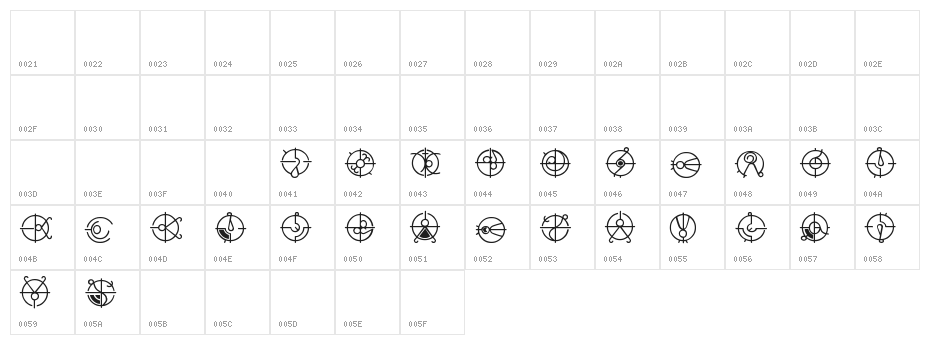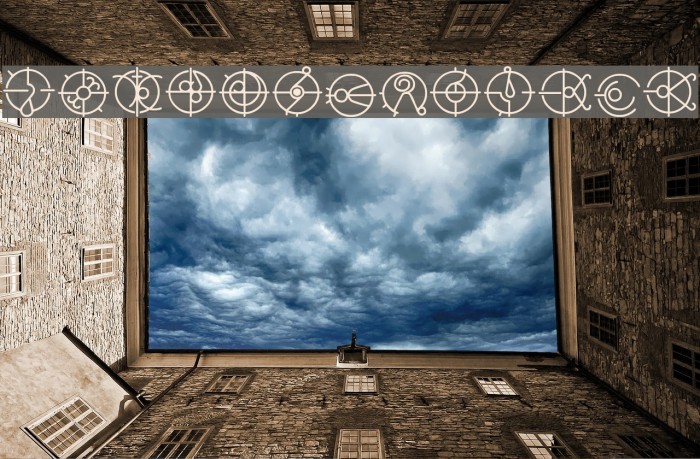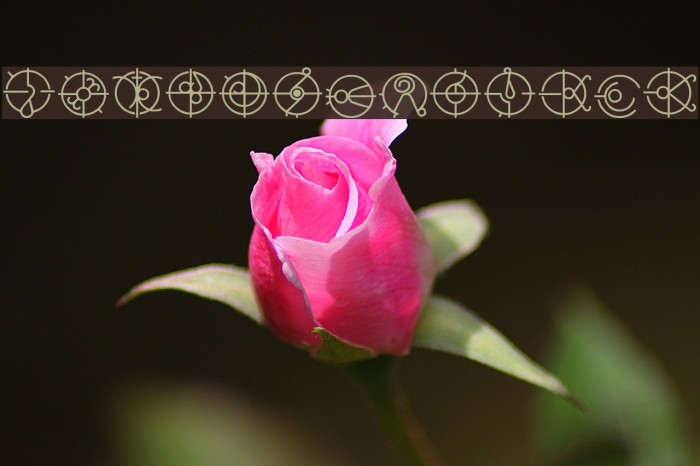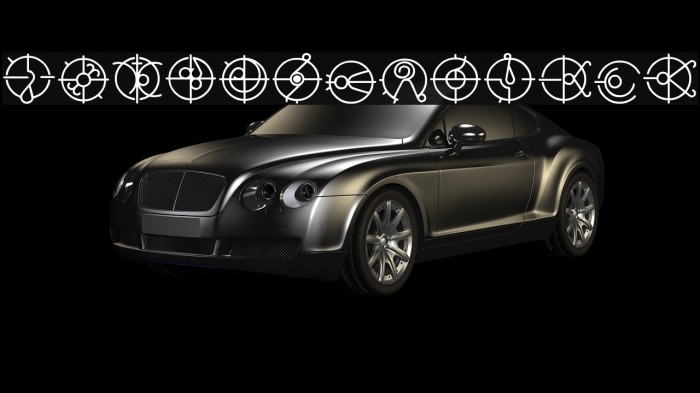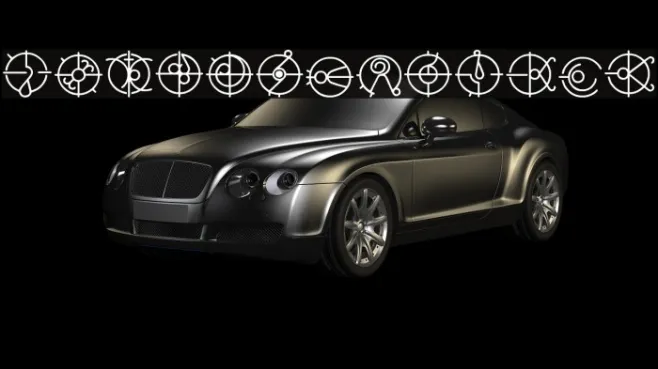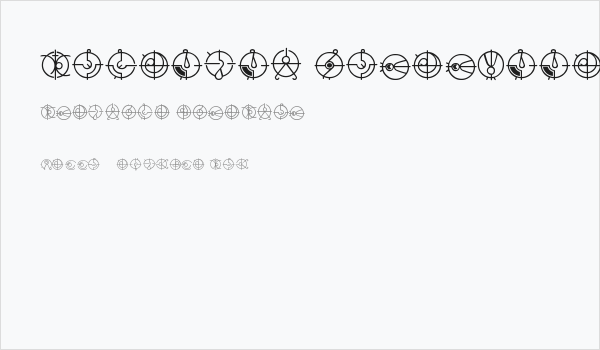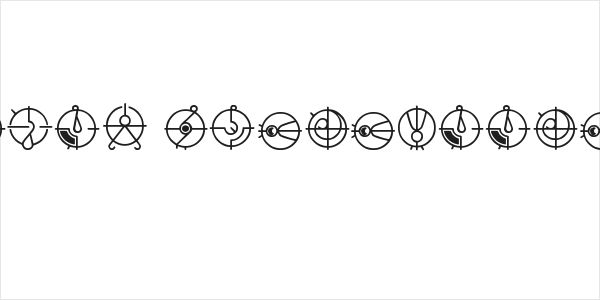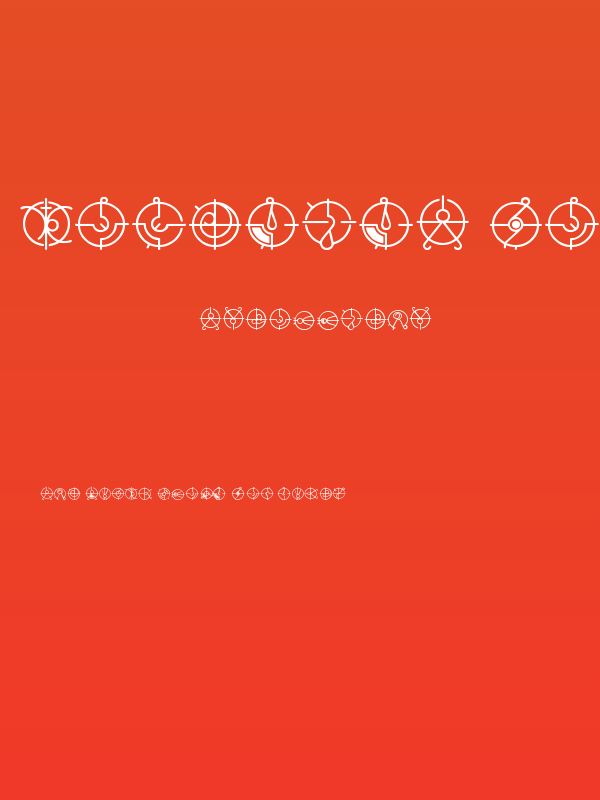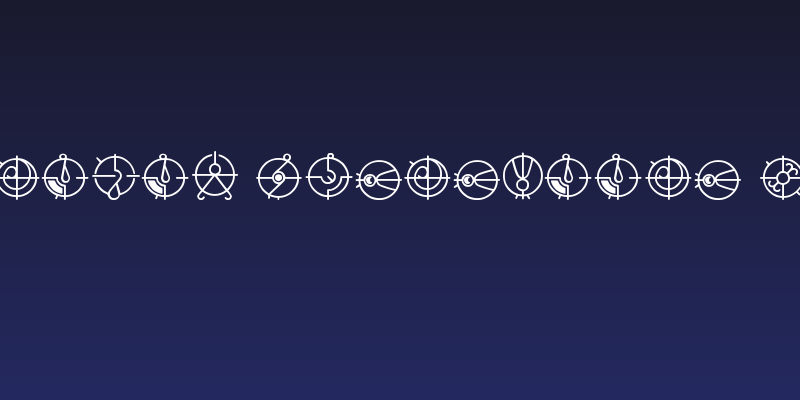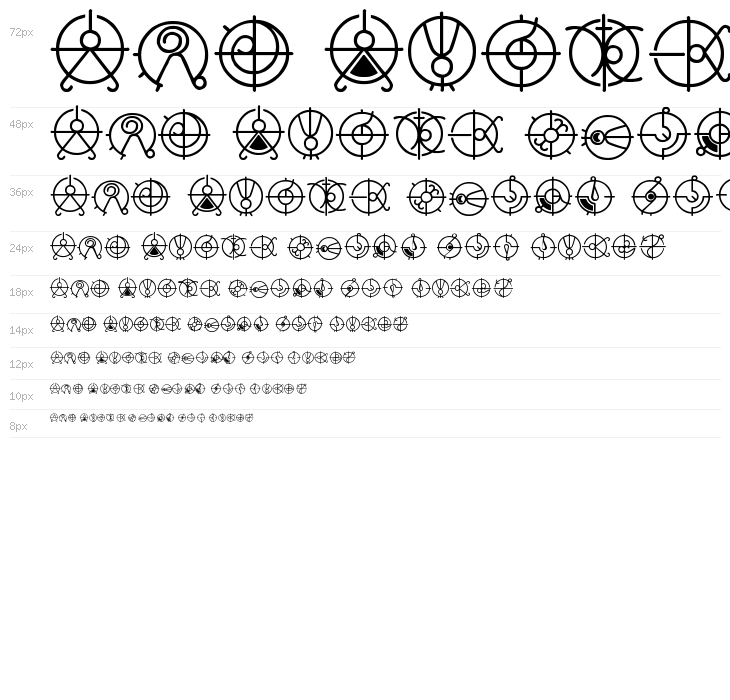
Covenant/Forerunner Bold Font
Covenant/Forerunner Bold Description
This font features a highly decorative and futuristic design, characterized by intricate geometric patterns and circular motifs. Each character is enclosed within a circular boundary, creating a sense of unity and cohesion across the alphabet. The design elements are reminiscent of alien or ancient scripts, with a focus on symmetry and balance. The bold lines and complex shapes give it a distinct appearance, making it suitable for projects that require a unique and eye-catching typeface.
| Overall Style | Futuristic, Decorative |
| Proposed Projects | Ideal for sci-fi themed designs, video game interfaces, movie titles, or any creative project that demands a futuristic and alien aesthetic. |